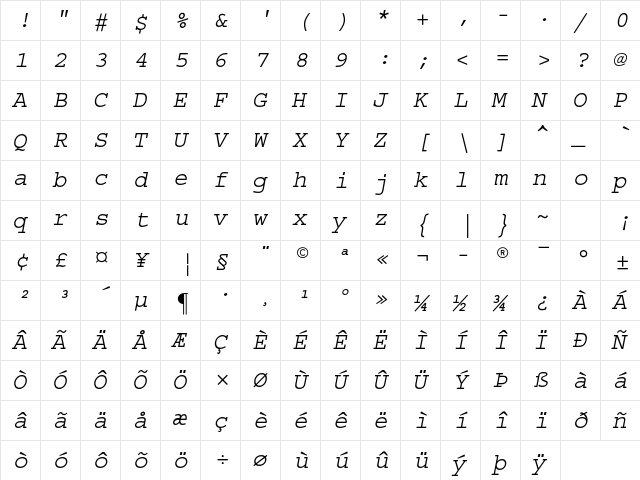
Courier Std Medium Oblique Font Preview
| Style | Medium Oblique |
| Designer | Howard Kettler |
Design Context for Courier Std Typeface
Courier Std brings the precise, column-aligned rhythm of monospaced typography to designs that value technical clarity and systematic order. Its italic angle brings a sense of urgency and motion to the letterforms.
Pro Tip: Use Courier Std with slightly increased line-height for extended reading — fixed-width spacing can feel dense in longer passages without extra breathing room.